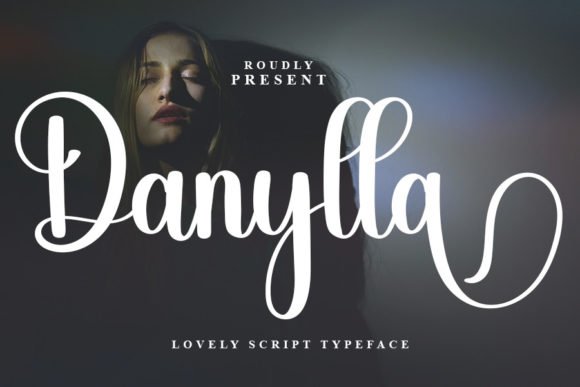
The Perfect Blend of Classic and Contemporary: Introducing Danylla Font
Have you ever been stuck on a design project, unable to find the perfect font to bring your vision to life? You spend hours scrolling through font libraries, and yet, nothing seems quite right. It’s in these moments of creative frustration that the perfect font can be a game-changer.
Enter Danylla Font, a stylish handwritten font that effortlessly blends the elegance of classic calligraphy with the modernity of contemporary design. With its impeccable form and timeless charm, Danylla Font is the perfect solution for designers looking to add a touch of sophistication to their work.
What makes Danylla Font truly valuable is its PUA encoding, allowing you to access all glyphs and swashes with ease. This means you can unlock the full potential of the font, creating unique and eye-catching designs that are sure to impress.
Danylla Font Key Features
- Unique Characteristics: Danylla Font features a unique, hand-painted style with intricate details and organic textures, giving it a distinctive look.
Danylla Font Review
When I first laid eyes on the Danylla Font, I was immediately drawn to its elegant and refined aesthetic. ✨ The font’s flowing curves and subtle flair give it a sophisticated, high-end feel that’s perfect for luxury brands, fashion, or art-related projects.
One of the things I love about Danylla is its versatility. ✨ It comes in a range of weights and styles, from light and delicate to bold and dramatic, making it easy to adapt to different design needs. The font also features a range of ligatures and swashes that add an extra touch of personality to your designs.
What I Like
- ✨ Elegant and refined aesthetic
- ✨ Versatile range of weights and styles
- ✨ Beautiful ligatures and swashes
- ⚠️ May not be suitable for simple or minimalist designs
- ⚠️ Can be difficult to read at very small font sizes
Overall, I’m really impressed with the Danylla Font. It’s a beautiful, high-quality font that’s perfect for designers who want to add a touch of luxury to their projects. While it may have some limitations, I think it’s well worth the investment for the right designs.
Alternatives to Danylla Font
Great Vibes Font is a beautiful, elegant script font that works well for invitations, wedding designs, and other creative projects. It features a flowing, handwritten style that is perfect for adding a touch of sophistication and whimsy to your designs.
Compared to Danylla Font, Great Vibes Font has a more refined and polished look, making it suitable for high-end designs. It’s also more versatile and can be used for a wide range of projects, from fashion to food design.
Lato Font is a modern sans-serif font that is perfect for corporate designs, websites, and mobile apps. It’s clean, minimalist, and highly legible, making it ideal for presentations, reports, and other business-related projects.
Compared to Danylla Font, Lato Font has a more straightforward and professional look, making it suitable for formal designs. It’s also more readable in small sizes and at high resolutions, making it a great choice for digital designs.
Playfair Display Font is a luxurious, elegant serif font that is perfect for high-end designs, luxury brands, and special occasions. It features a classic, sophisticated look that is reminiscent of traditional typography.